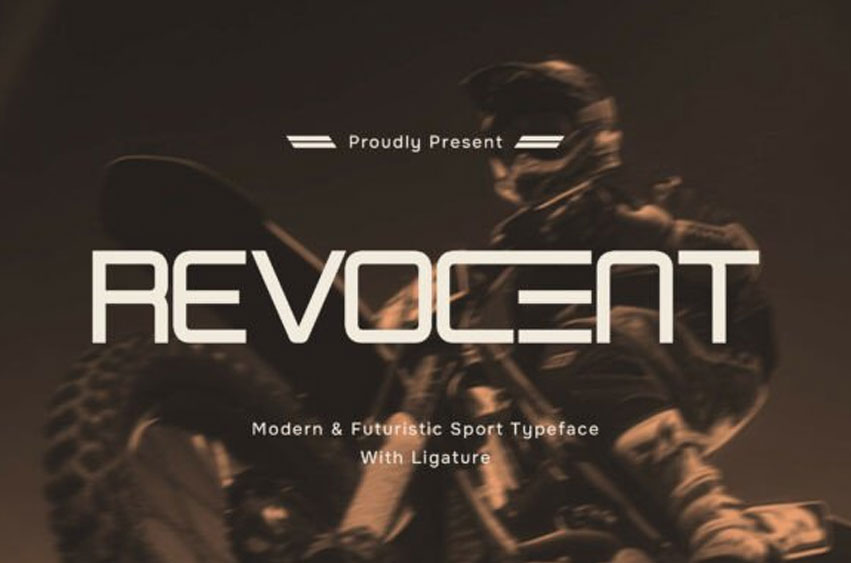
Revocent Font is a modern futuristic sport typeface crafted to deliver a cutting-edge, high-speed visual impact. With its sleek geometry, sharp angles, and forward-looking design, Revocent embodies innovation, precision, and performance—perfect for projects that demand an eye catching and progressive identity.
Inspired by technology and motion, this typeface features dynamic letterforms that feel fast, powerful, and highly modern. Its futuristic style adds a distinctive edge while maintaining clarity and structure, making it effective for both striking headlines and clean visual compositions.